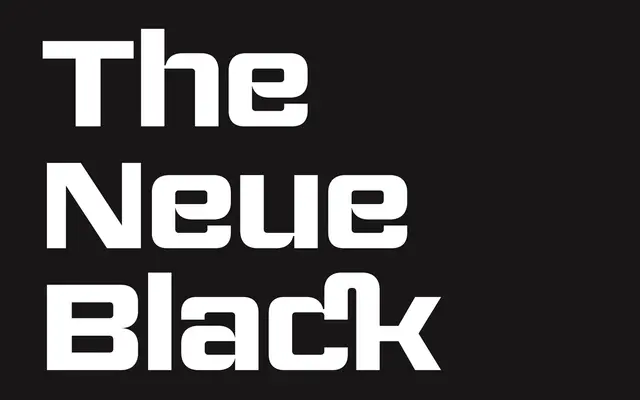
The Neue Black
A free display typeface by Vocal Type drawn from the signage of Martin Luther King Jr's Chicago Freedom Movement, released for Black History Month 2020 in collaboration with The Art of Blackness.
Created for Black History Month 2020 in partnership with The Art of Blackness, the typeface takes its letterforms from the signage of the Southern Christian Leadership Conference's 1966 Chicago Freedom Movement, the campaign that pushed civil rights activism into northern American cities. A single Black weight reflects the monumental, declarative quality of protest graphics. Available as a free download, with the option to support Vocal Type financially.
A display typeface drawn from the hand-lettered signage of the Chicago Freedom Movement; its bold, blocky character and historical grounding place it firmly in the display category rather than a conventional text sans.